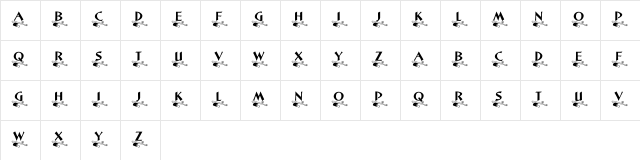
KR Little League Regular Font Preview
KR Little League Regular
KR Little League Regular Font Details
Design Context for KR Little League Typeface
KR Little League is a composed and adaptable typeface that performs quietly and consistently across a wide range of design contexts.
Pro Tip: Pair KR Little League with a font of contrasting weight or personality to build a more expressive typographic hierarchy.